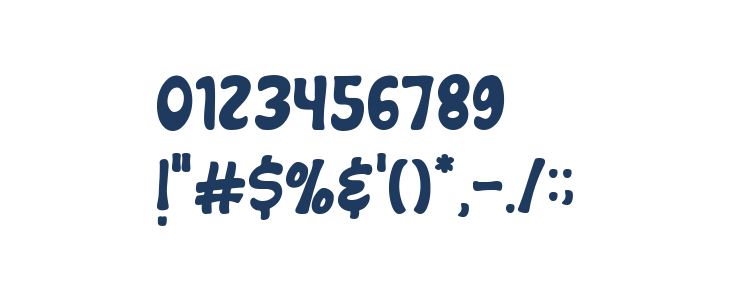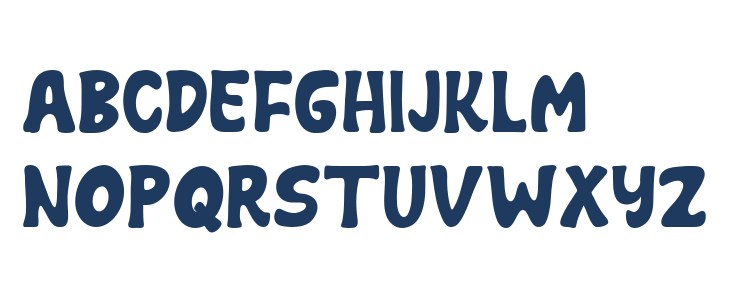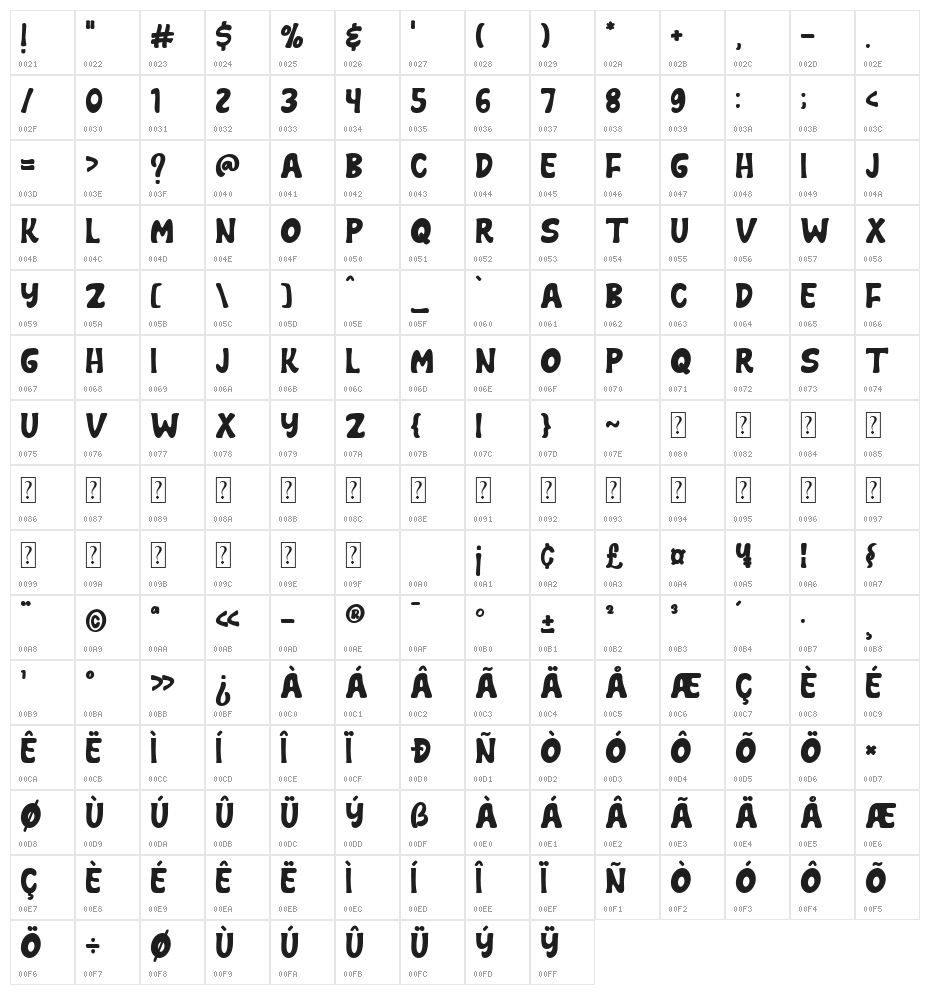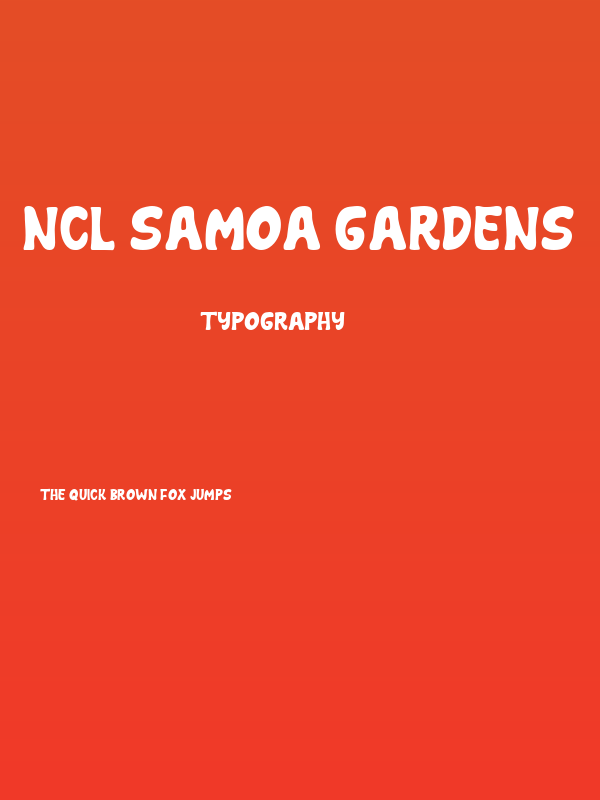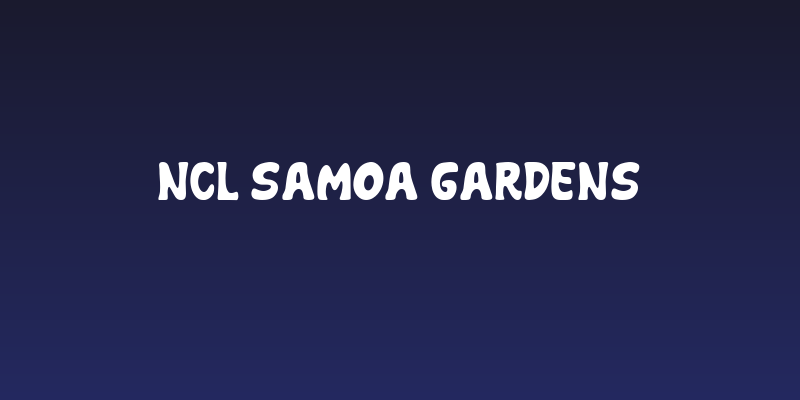
NCL Samoa Gardens Font
NCL Samoa Gardens Description
| Overall Style | Playful, Whimsical, Informal, Decorative |
| Use Case | Headlines, Posters, Logos, ChildrenΓ’β¬β’s materials |
| Proposed Projects | ChildrenΓ’β¬β’s books, posters, party invitations, branding for playful or casual products, signage, social media graphics. |